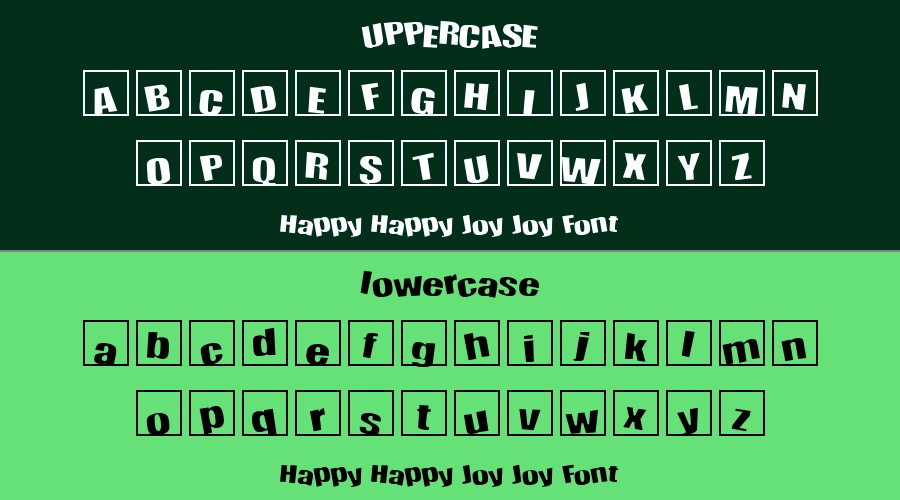
About Happy Happy Joy Joy Font
Happy Happy Joy Joy Font embodies typographic excellence through its masterful combination of convex bowls and enduring style. Created for environmental graphics, this typeface delivers exceptional memorability and practical utility across all applications. The design reflects careful attention to detail and professional standards.
Advanced capabilities include distinctive terminals and versatile technical characters, giving designers creative control. When used in compliance materials, Happy Happy Joy Joy Font exhibits remarkable body text reading. The harmonious balance between proportion and brand personality sets this typeface apart.